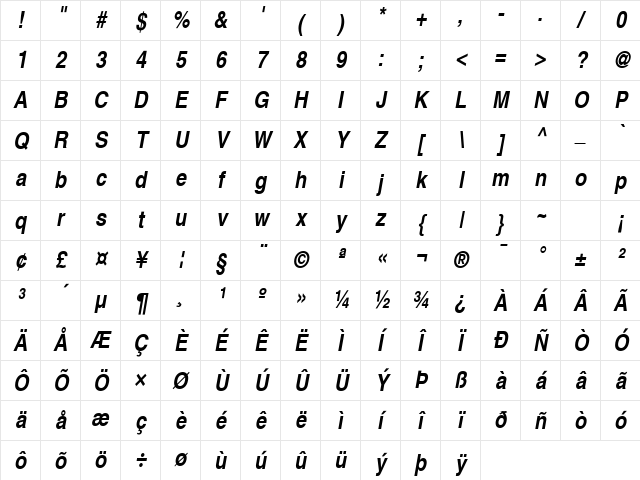
Context Extra Condensed SSi Bold Extra Condensed Italic
Style: Bold Extra Condensed Italic
Design Context for Context Extra Condensed SSi
Context Extra Condensed SSi is a composed and adaptable typeface that performs quietly and consistently across a wide range of design contexts. The slanted form adds forward momentum and visual energy. Its bold stroke weight gives it real presence on the page. Its narrow stance lets it pack a punch even in space-constrained designs.
Pro Tip: Use Context Extra Condensed SSi for emphasis, pull quotes, and subheadings where its slanted energy can add rhythm to the layout.